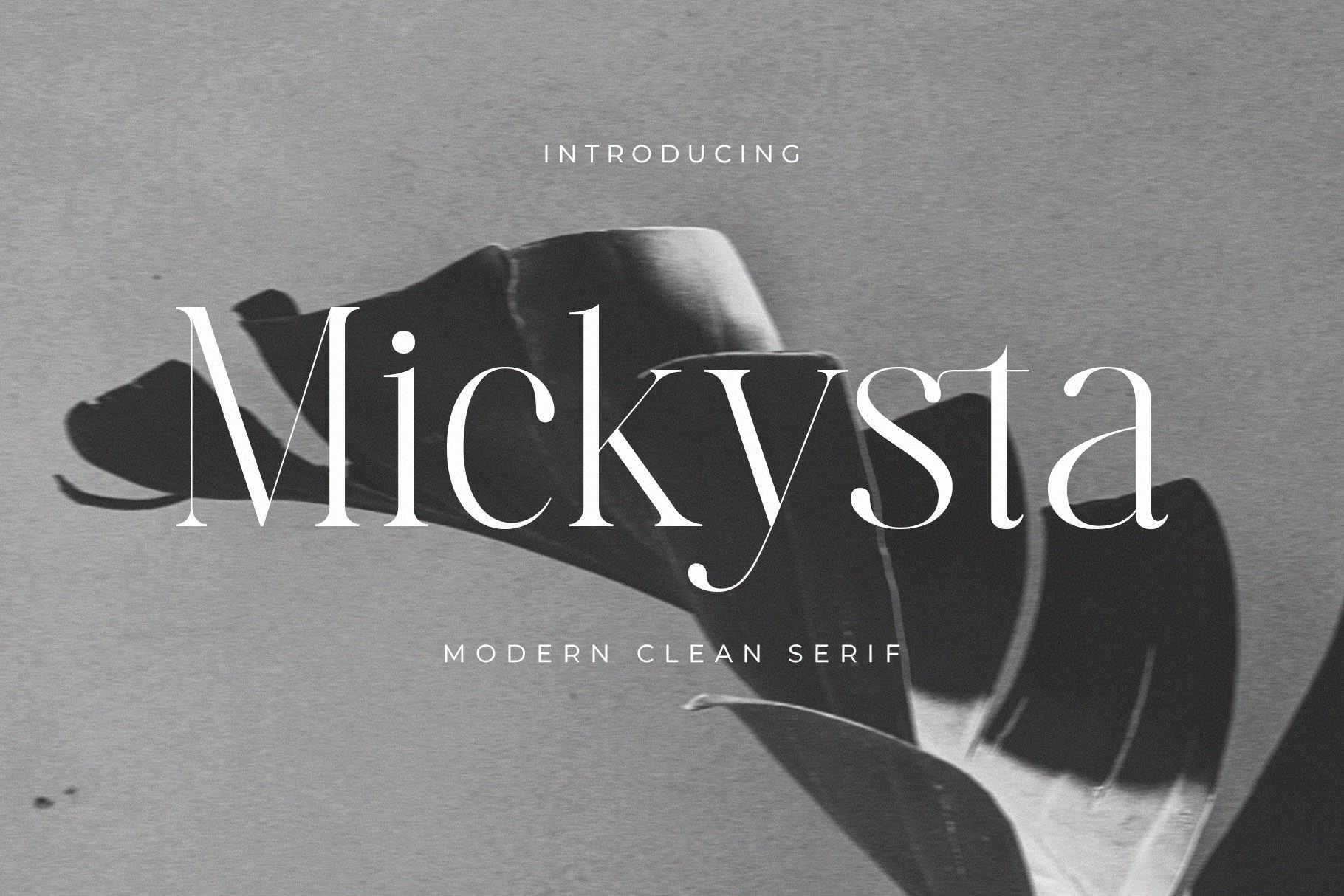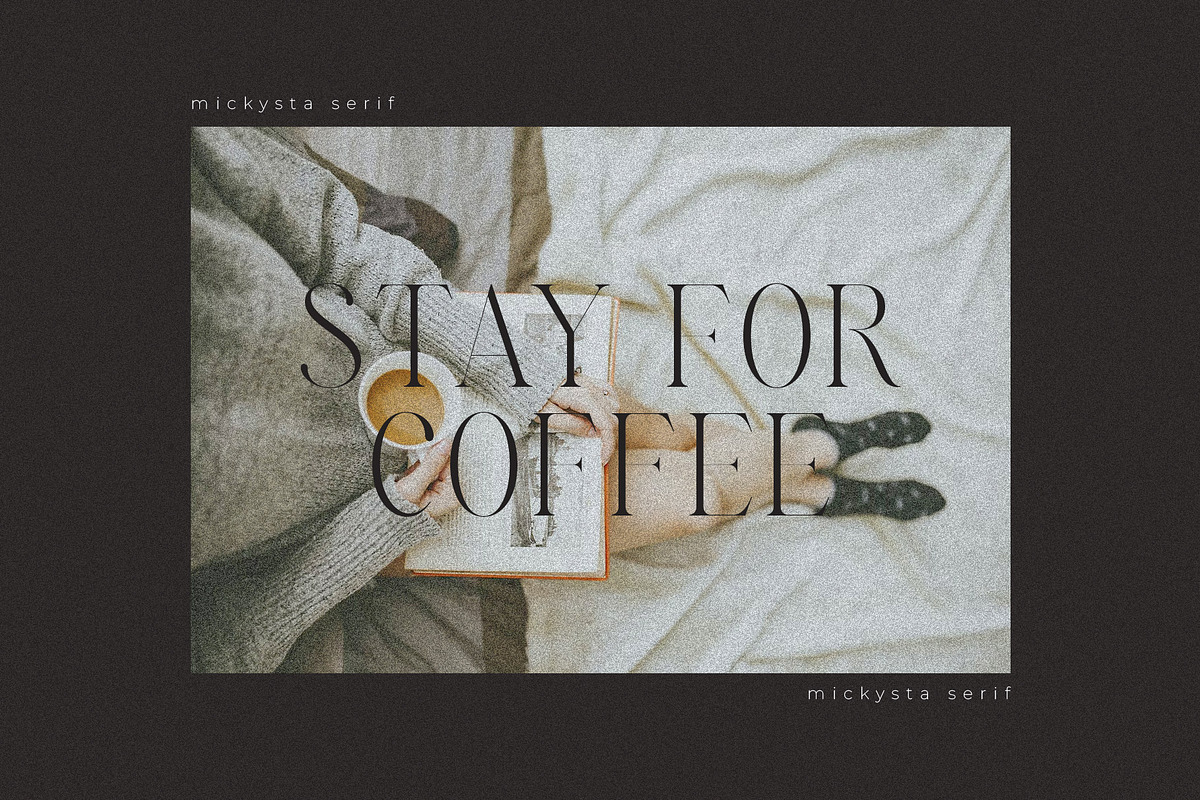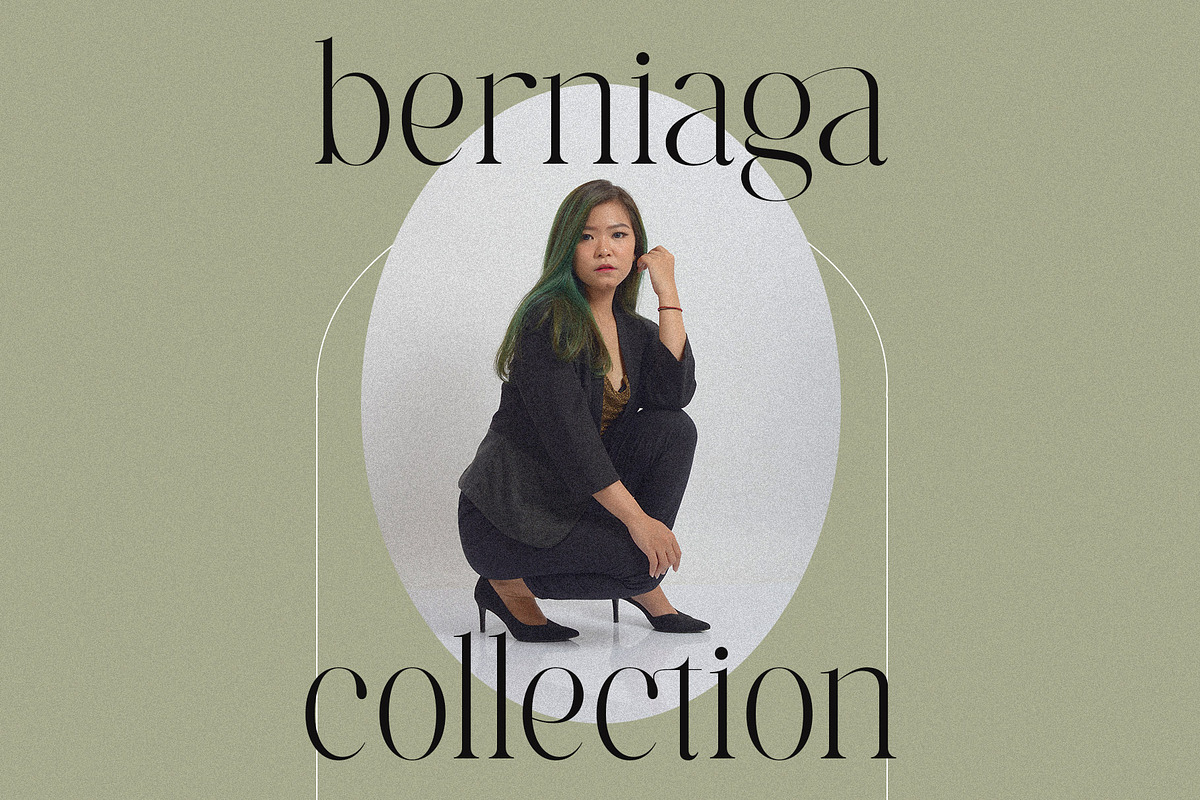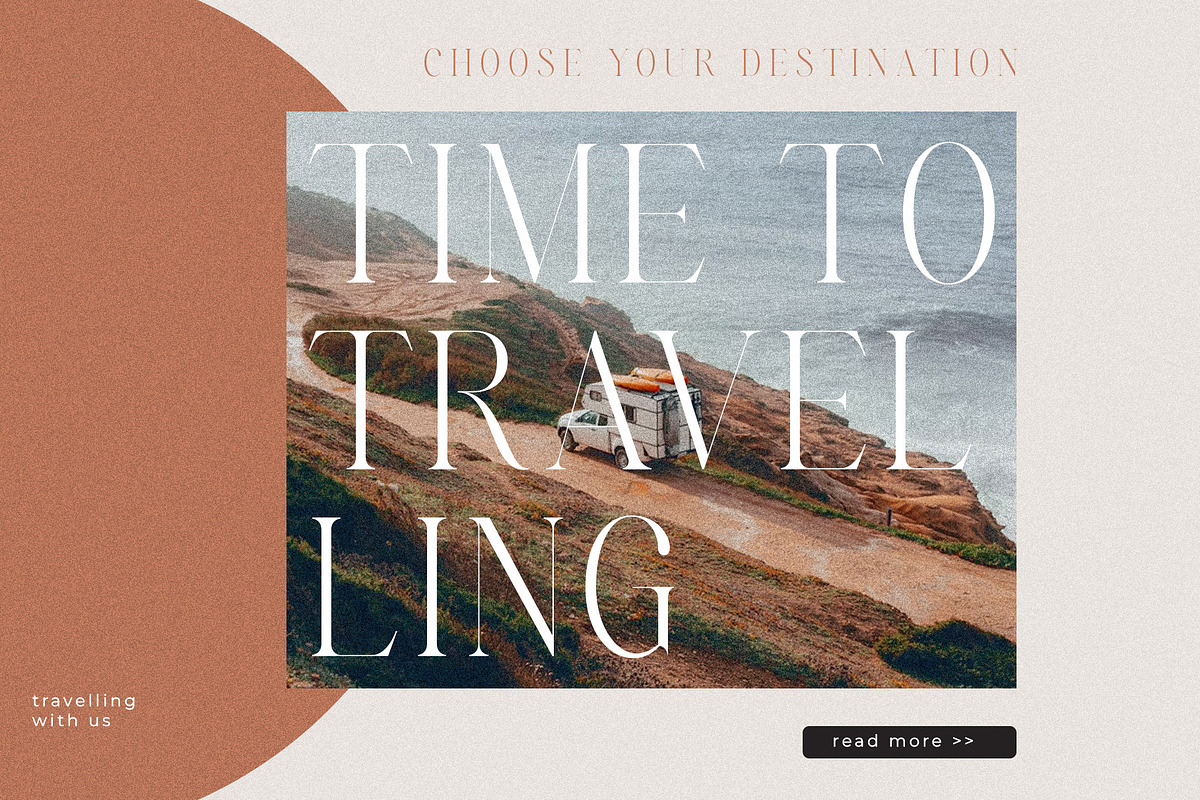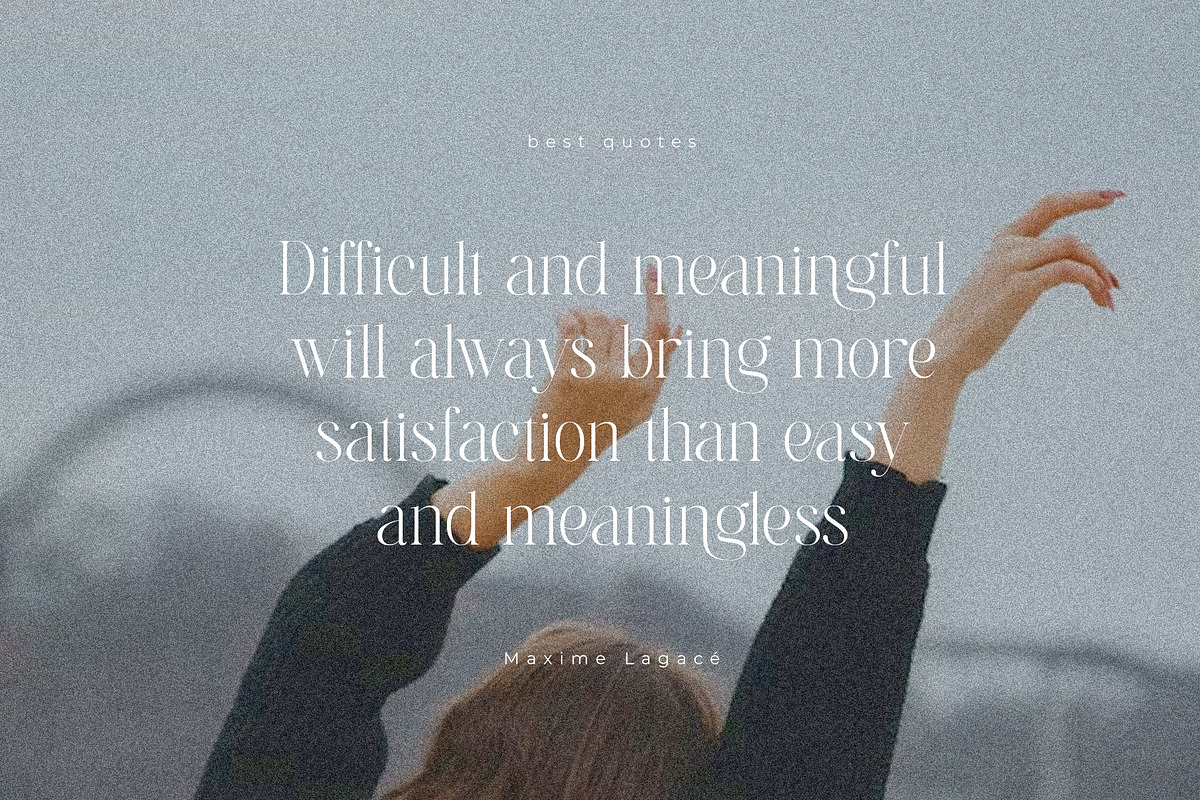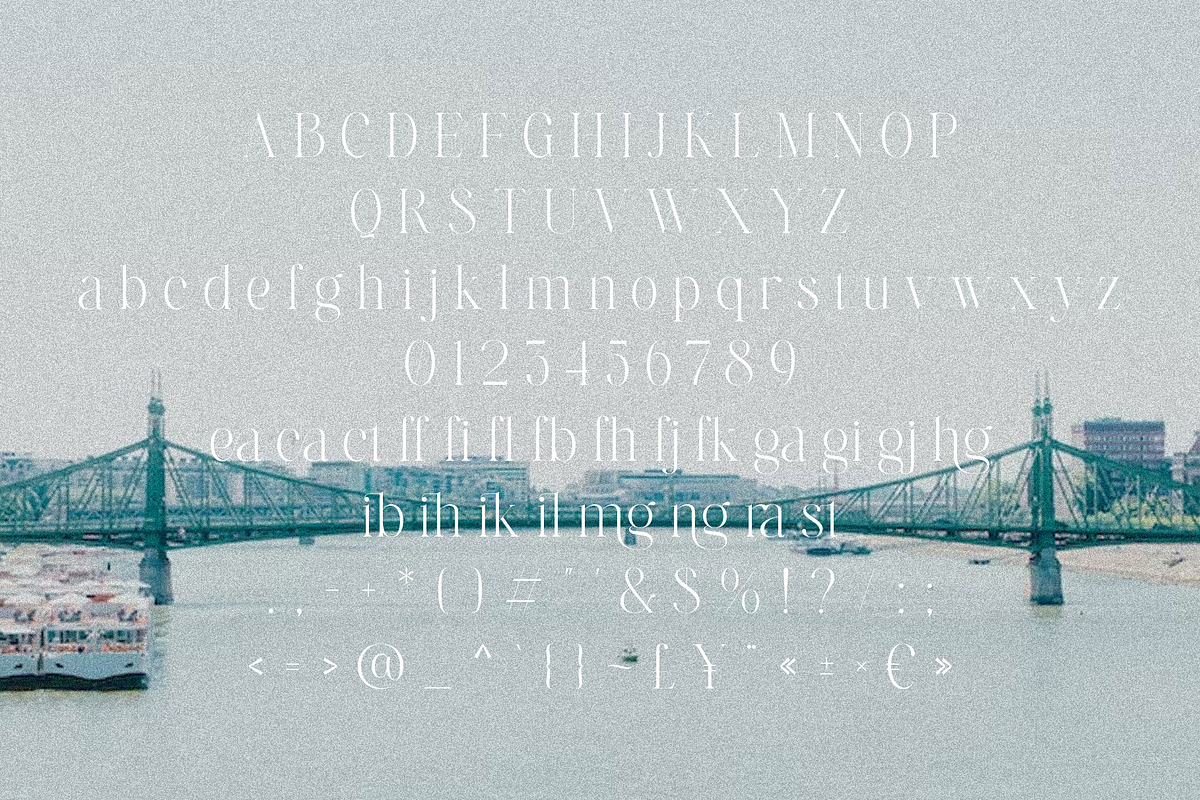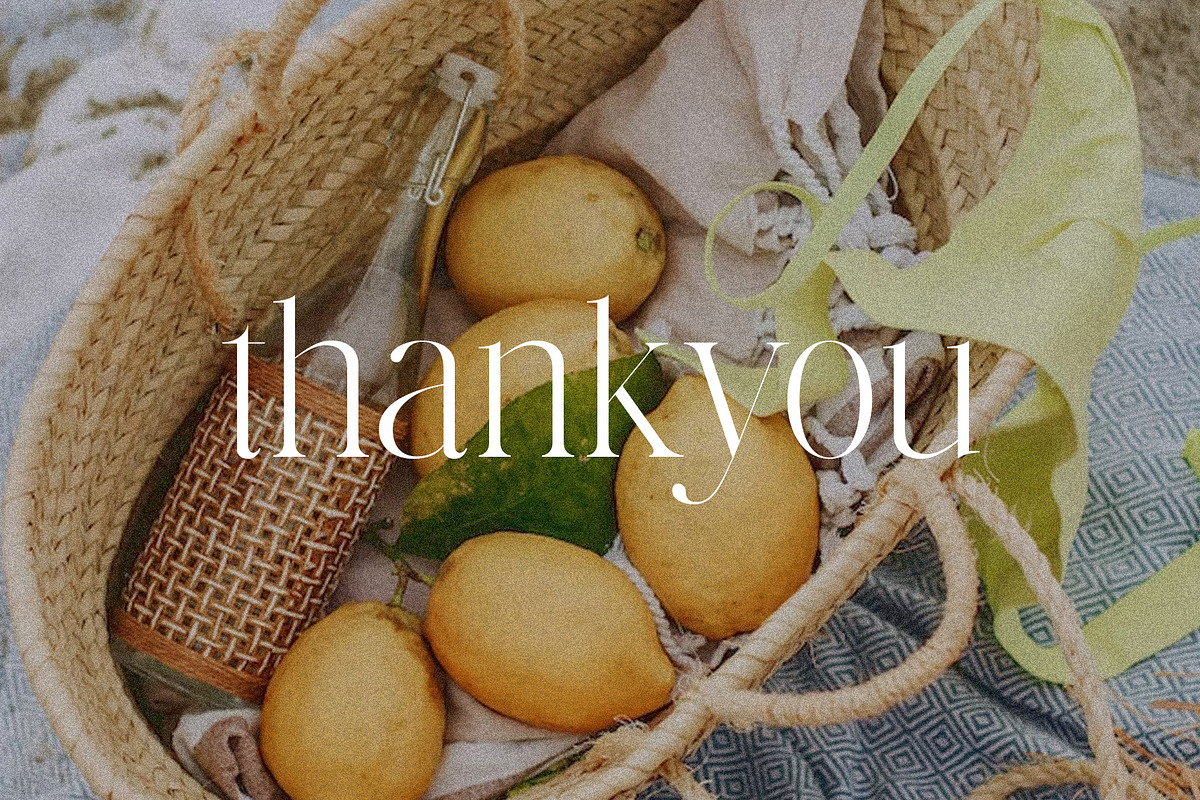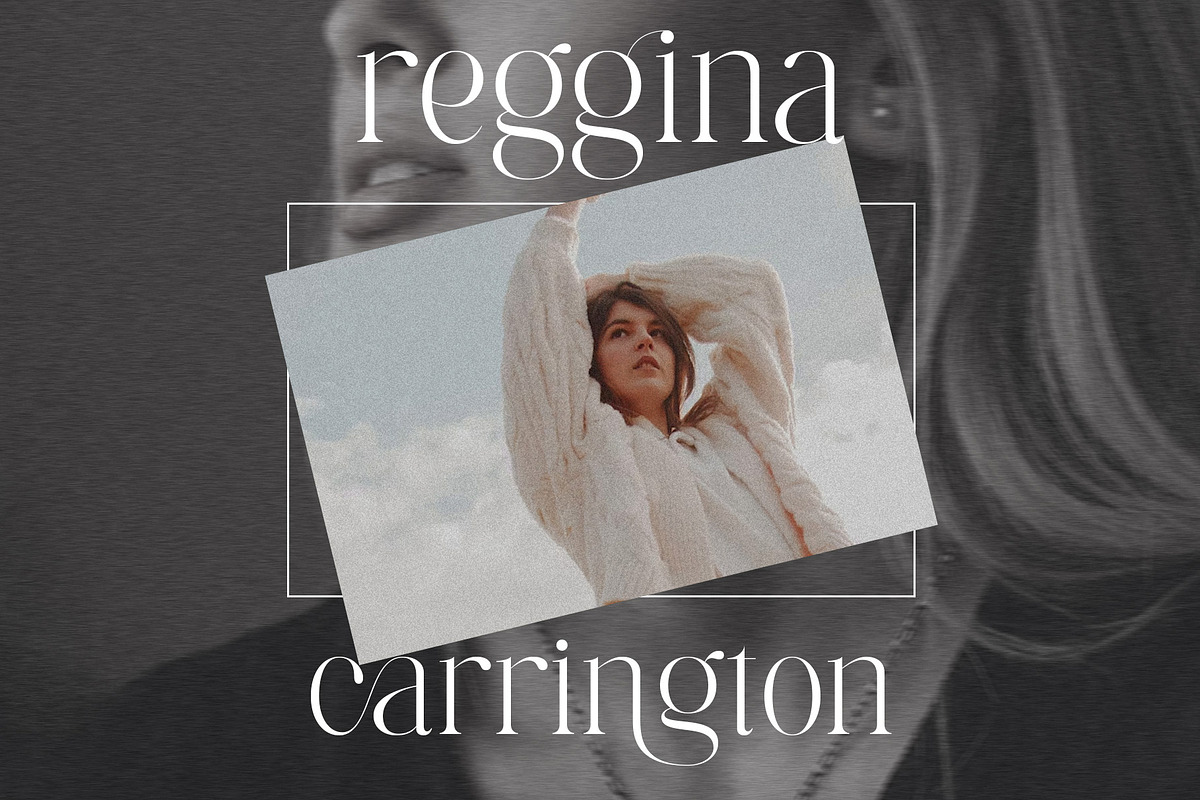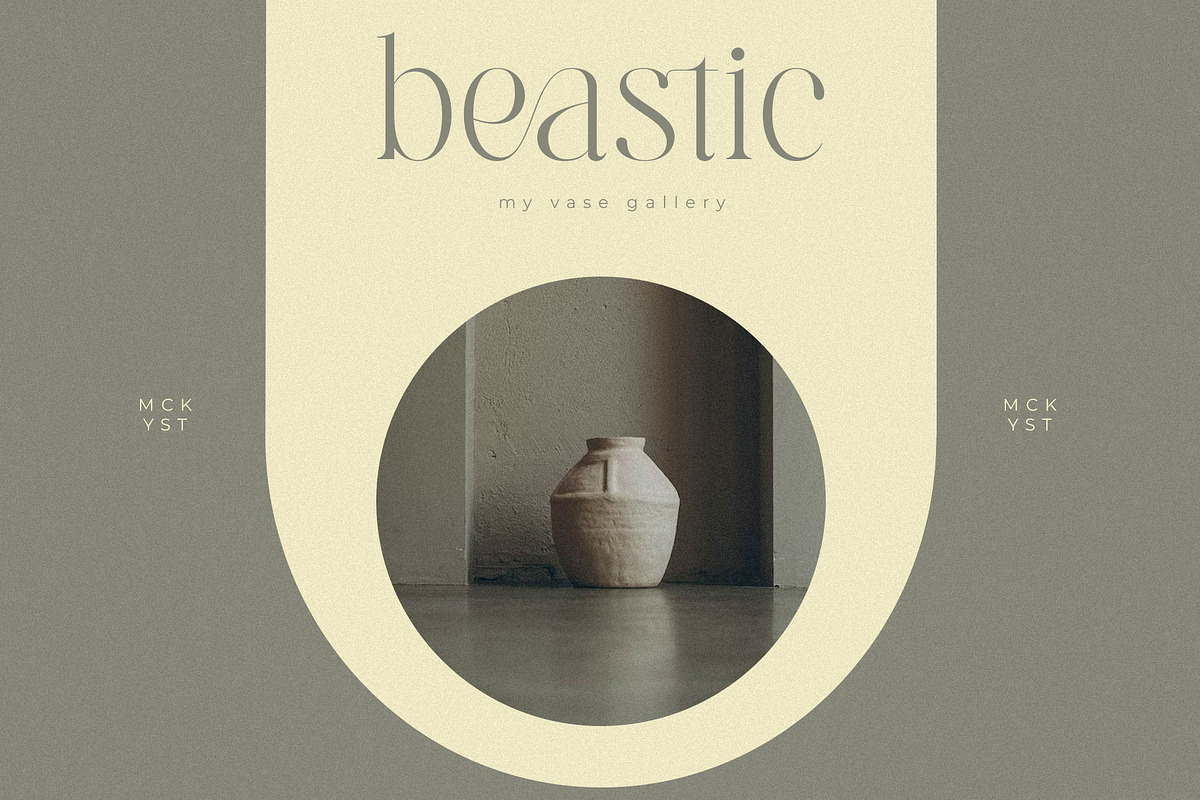
Mickysta - Modern Serif Font
Introducing our new "Mickysta" unique and modern serif font with elegant style this is perfect for branding, logos, invitation, magazines, product packaging and more.